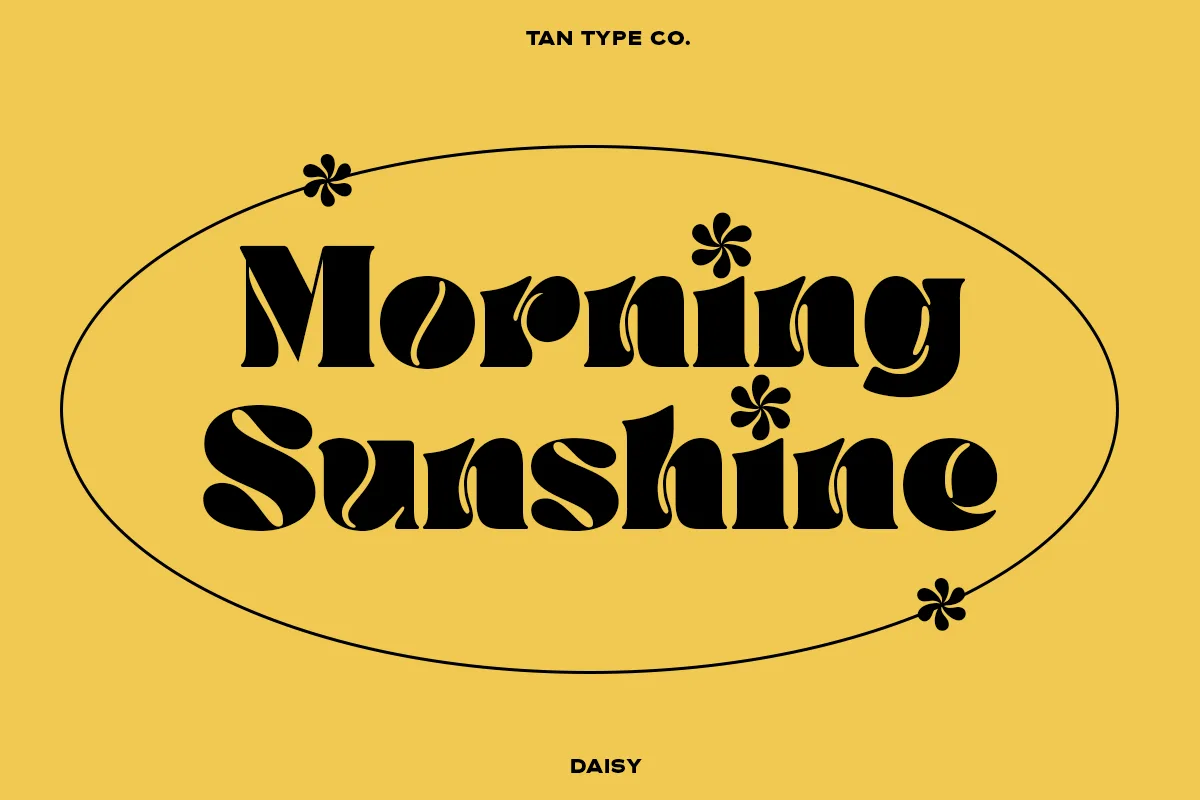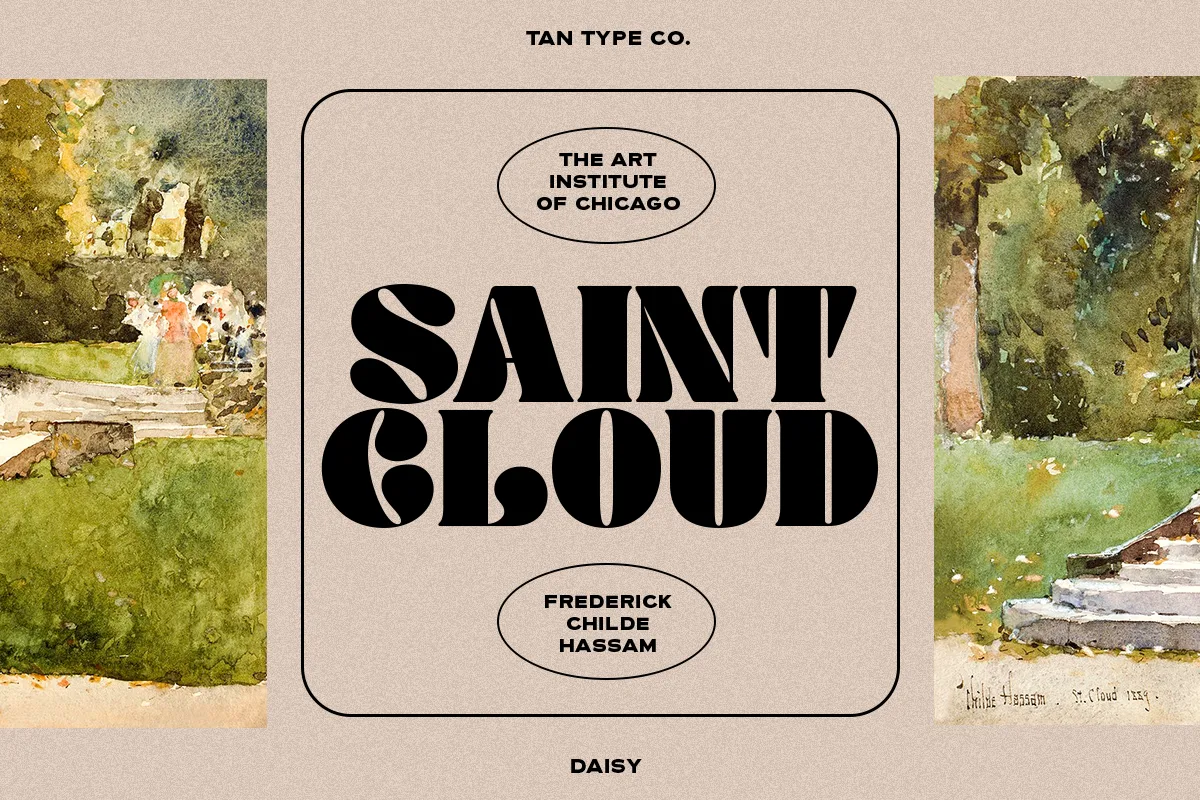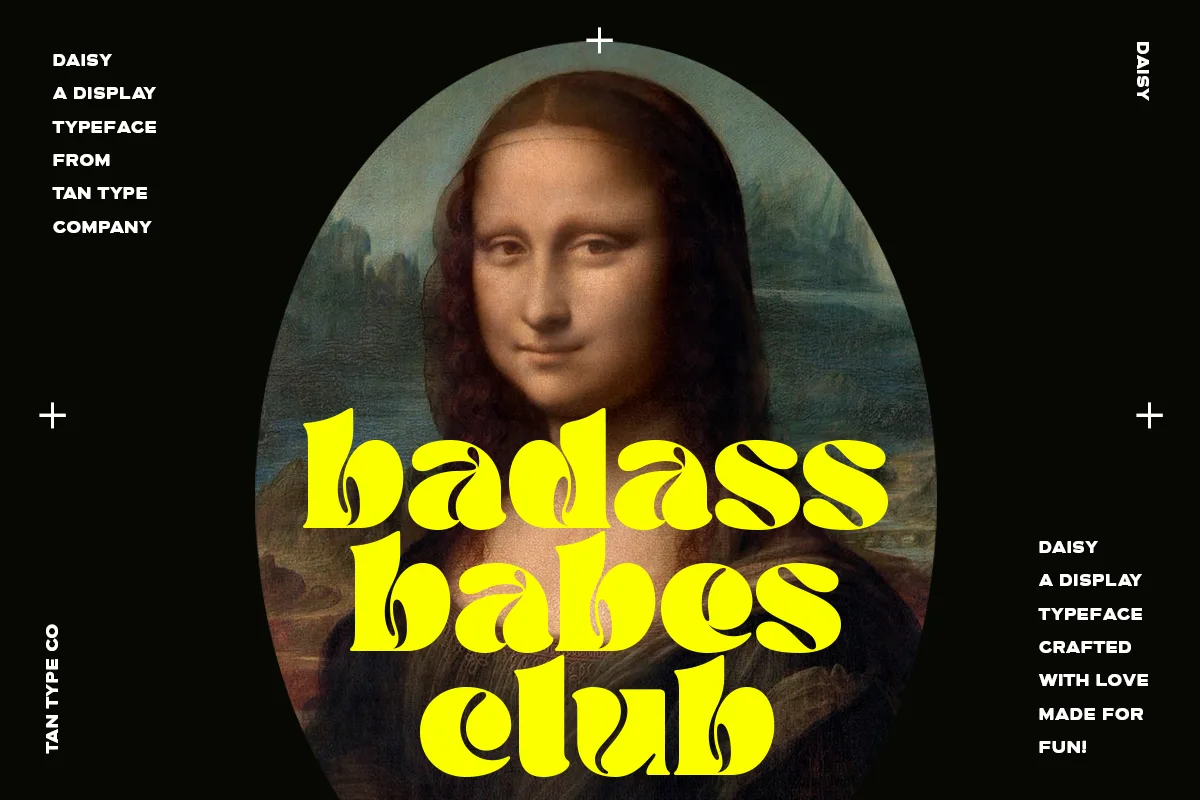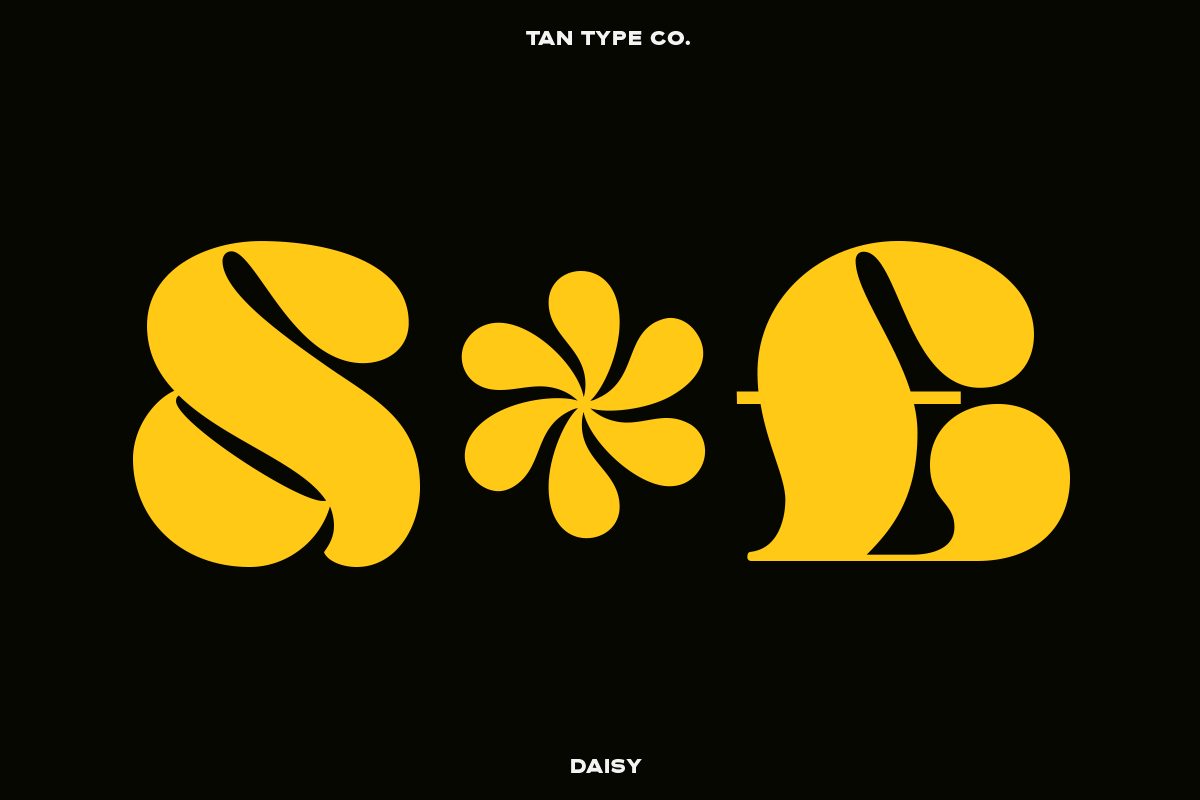
Tan – Daisy Font
Tan Daisy Font
Tan Daisy is a display typeface full of retro power. It’s quirky, groovy, and funky— definitely charming. Bold and thick, a fun typeface to play with.